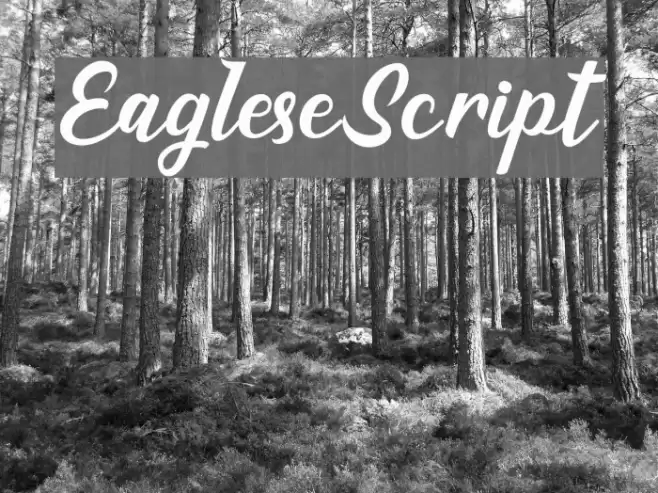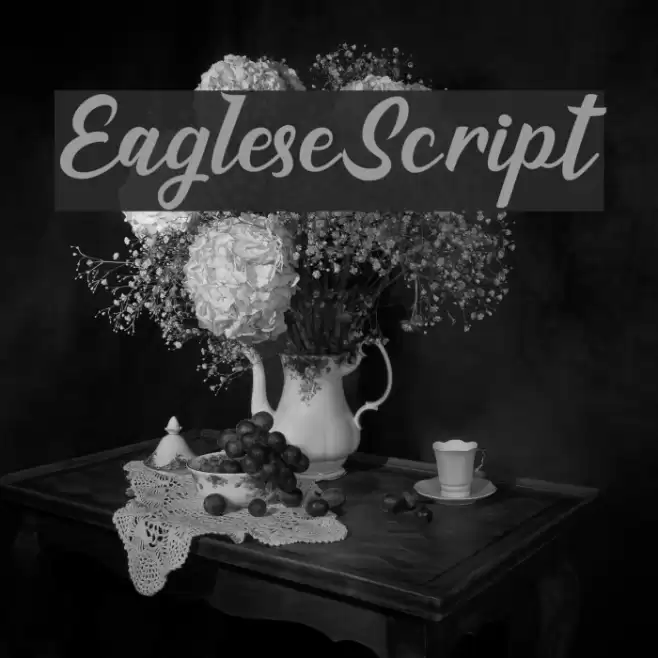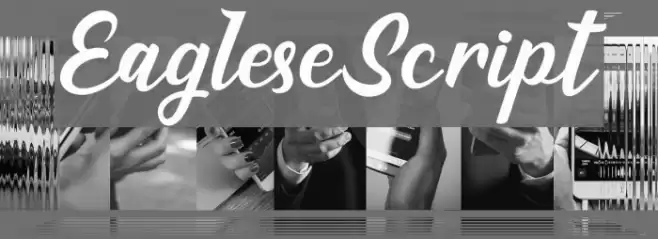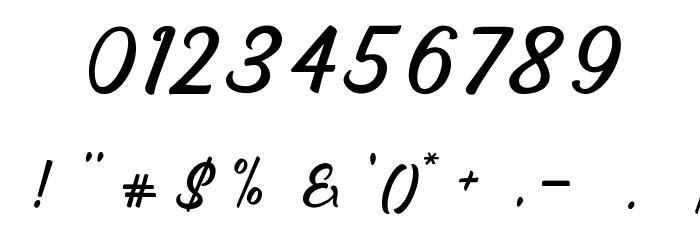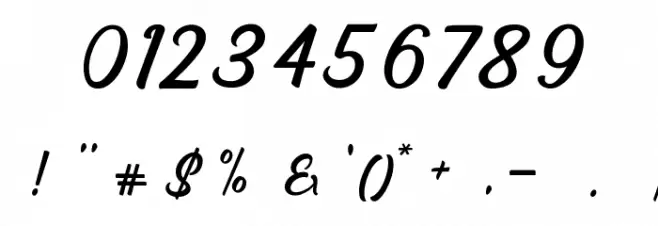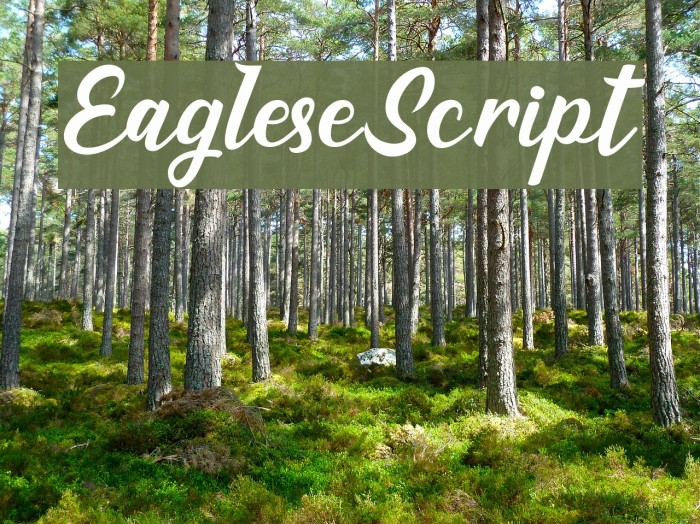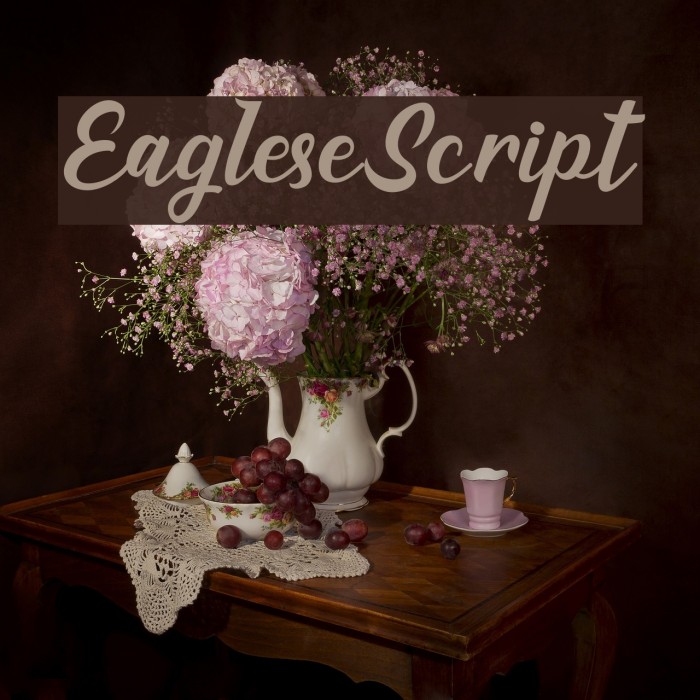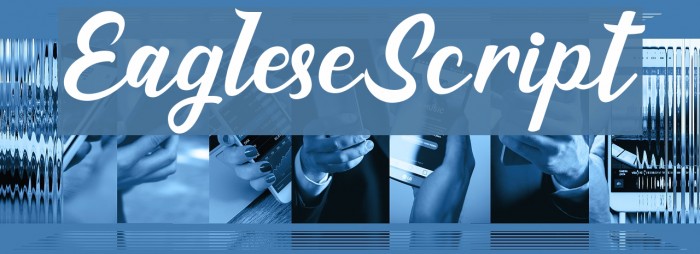
EagleseScript Font
EagleseScript Description
This font features a flowing, elegant script style with a sense of movement and grace. The uppercase letters are bold and sweeping, with distinctive flourishes that add a touch of sophistication. The lowercase letters maintain a consistent style, with smooth curves and a slightly slanted orientation, enhancing the script's fluidity. Numbers are clear and legible, matching the overall aesthetic with their rounded forms. Special characters are thoughtfully designed, integrating seamlessly with the alphabetic characters. This script font exudes a sense of elegance and formality, making it suitable for a variety of creative applications.
A flowing, elegant script font with bold, sweeping uppercase and smooth, slanted lowercase letters from Uncategorized fonts.
- Proposed Projects: Ideal for wedding invitations, elegant branding, formal event programs, and decorative signage.
- Overall Style: Elegant, Formal
- Use Case: Headlines, Invitations, Branding